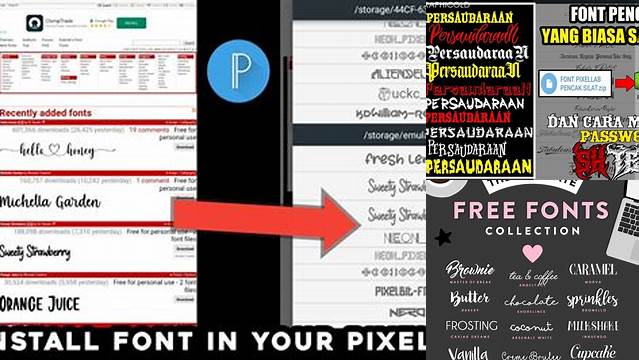
Free Font Pixellab: Your Complete Guide To Stunning Typography
Are you ready to dive into the exciting world of design with Free Font Pixellab? Guys, if you're looking to spice up your graphics with some killer typography, you've come to the right place. We're going to explore everything about Free Font Pixellab, from where to find these amazing fonts to how to use them like a pro. Whether you're a seasoned designer or just starting out, this guide will equip you with all the knowledge you need to create visually stunning designs that capture attention. Let's get started and unlock the power of typography with Free Font Pixellab! So, buckle up, and get ready to transform your designs!
Unveiling the Power of Free Font Pixellab: A Typography Revolution
Alright, let's get down to brass tacks: What's the deal with Free Font Pixellab? Well, it's all about the incredible selection of fonts available within the Pixellab app. Pixellab is a super user-friendly mobile app that lets you create stunning graphics right on your phone or tablet. And the best part? It offers a vast library of free fonts, making it accessible for anyone to get creative, regardless of their budget. With Free Font Pixellab, you're not just getting text; you're getting a powerful tool to convey your message, express your brand's personality, and grab your audience's attention. The right font can make or break a design, turning a simple graphic into a work of art. Imagine crafting eye-catching social media posts, creating professional-looking logos, or designing captivating marketing materials – all without spending a dime on expensive software or font licenses. It's all about empowering you, the creative enthusiast, to make your ideas pop! These fonts come in all shapes and sizes – from elegant serifs to bold sans-serifs, playful scripts, and everything in between. This variety is vital; each font carries its own unique personality and is best suited for different purposes. You might find that a classic serif font is perfect for a formal announcement, while a quirky script font is ideal for a fun, informal invitation. The power of Free Font Pixellab lies not just in the number of fonts but in the endless creative possibilities it unlocks. So, how do you harness this power? Stay with us, and we’ll dive into all the details!
Why Choose Free Fonts for Your Designs?
Choosing free fonts from Free Font Pixellab is a game-changer for many reasons, especially if you're a design enthusiast on a budget. First and foremost, it's cost-effective. No need to shell out cash for font licenses when you have a treasure trove of fantastic options right at your fingertips. This makes it perfect for personal projects, small businesses, or anyone who wants to experiment with design without the financial commitment. Beyond the financial benefits, Free Font Pixellab also offers unparalleled accessibility. You don't need to be a design expert to get started. The app's user-friendly interface makes it super easy to browse, download, and use fonts in your designs. This accessibility opens up the world of design to everyone, regardless of their skill level or background. Furthermore, using free fonts is a great way to explore different styles and find the perfect match for your brand or project. The variety is key here. You can test out different fonts, experiment with combinations, and see what resonates with your audience without any financial risk. This experimentation is crucial in finding your unique design voice and refining your aesthetic. So, whether you're a social media guru looking to elevate your posts or a budding entrepreneur aiming to create a professional brand identity, the accessibility and affordability of Free Font Pixellab is a major win.
Where to Find the Best Free Fonts for Pixellab
Looking for the ultimate font treasure trove? Let's explore where you can find the best Free Font Pixellab fonts to spice up your designs. Firstly, always remember that the Pixellab app itself is a great place to start. It comes packed with a fantastic selection of pre-installed fonts. These are a great starting point, perfect for a variety of design needs. However, if you are seeking a wider range, explore some of the best websites that offer free font downloads. A great option is Google Fonts. This is a massive library of fonts, all of which are free for both personal and commercial use. It's super user-friendly, allowing you to browse fonts by style, thickness, and other features. Another great place to look is DaFont. This site has an enormous collection of fonts, from modern and sleek to quirky and vintage. Be mindful of the licensing; it’s always a good idea to check the usage rights for each font before you use it in your design. Font Squirrel is also worth exploring; this site curates high-quality fonts and offers them for free, often with commercial-use licenses, making it a good choice for businesses. Additionally, consider Behance and Dribbble. Both platforms are great places to discover unique fonts created by talented designers. You can often find free font downloads or links to download them on the designers' profiles. Always remember to read the license agreements associated with each font carefully. Make sure you understand how you can use the font – whether it's for personal use, commercial projects, or both. Keeping an eye out for the font's creator and giving credit can also be a nice gesture. With so many free options, you're sure to find fonts to suit your style and meet your design needs. Happy downloading, and let your creativity shine with all the Free Font Pixellab fonts available!
Mastering Typography: Tips for Using Free Fonts in Pixellab
Alright, now that you know where to find your Free Font Pixellab fonts, let's talk about how to use them like a pro! Typography isn't just about picking a pretty font. It's an art, a science, and a critical component of design. First things first, font pairing is key. Don't just pick a single font and call it a day. Experiment with combining different fonts to create visual interest and hierarchy. Consider a classic pairing like a strong, bold headline font with a clean, readable body font. This creates contrast, making your design more engaging. When choosing fonts, think about the message you want to convey and the personality of your brand. A playful font might be ideal for a children's book, while a formal font is better suited for a business presentation. Consider legibility. No matter how much you love a font, it's useless if people can't read it. This is super important! Choose fonts that are easy to read, especially for body text. Also, always ensure the font is clear on different backgrounds and sizes. Spacing is also critical. Adjust the line spacing, letter spacing, and word spacing to improve readability. Sometimes, just a slight adjustment can make a massive difference. Hierarchy is another important aspect. Create a clear visual hierarchy by using different font sizes, weights, and styles. This helps guide the viewer's eye and emphasizes the most important information. Bold headlines, smaller body text, and strategic use of italics can all help create this hierarchy. Experiment with color. Try using different colors for your fonts to make them stand out and match the overall color scheme of your design. Always make sure there is enough contrast between the font color and the background. Keep it consistent! Once you have a style that you like, stick with it. Consistent use of fonts helps strengthen your brand identity and makes your designs more recognizable. Try to avoid using too many fonts in a single design. Typically, it's best to stick to one or two font families for consistency. By following these tips, you’ll be well on your way to creating stunning designs with your Free Font Pixellab fonts.
Font Selection and Branding: Creating a Cohesive Look
Let’s talk branding! Using Free Font Pixellab to create a cohesive brand identity is a game-changer. Your brand's fonts are more than just text; they are a visual representation of your brand's personality, values, and message. To begin, understand your brand's core values. Is your brand playful and fun, or is it professional and trustworthy? Your chosen fonts should reflect these values. A playful brand might use a quirky, handwritten-style font, while a professional brand might opt for a clean, modern sans-serif font. Next, develop a font palette. This means selecting a few fonts that you'll use consistently throughout your branding. Typically, you’ll want a headline font, a body font, and perhaps a secondary font for emphasis. Consider the relationships between the fonts. They should complement each other and create visual harmony. Consistency is key. Use your chosen fonts consistently across all your branding materials, from your logo and website to your social media posts and marketing materials. This consistency will help build brand recognition and reinforce your brand identity. In addition to the fonts themselves, consider the different weights and styles available for each font. Using different weights (like bold, regular, and light) and styles (like italic) can help you create visual interest and hierarchy within your designs. Always make sure the fonts you choose are legible. The font needs to be easy to read, especially for body text. Think about the font's spacing and the environment in which it will be used. Make sure your fonts are accessible. Choose fonts that work well on different devices and screen sizes. Don't forget to test your fonts on various backgrounds to ensure they are easily readable. By carefully considering these points, you can leverage Free Font Pixellab fonts to create a powerful and cohesive brand identity that captivates your audience and leaves a lasting impression.
Designing with Free Fonts: Creating Stunning Visuals
Designing with Free Font Pixellab is a gateway to unleashing your creative potential. Once you have selected the perfect fonts for your project, it's time to create stunning visuals that capture attention and convey your message effectively. Start with the fundamentals. Before diving into your design, think about the basic principles of good design. This includes things like balance, contrast, proportion, and alignment. These principles will help you create visually appealing compositions. When designing with text, make sure to create a clear hierarchy. Use different font sizes, weights, and styles to guide the viewer's eye and emphasize important information. A strong headline font can grab attention, while a readable body font ensures your message is easy to follow. Experiment with different layouts. Try out various arrangements of text and other design elements to see what looks best. Consider using grids to help you create a structured and organized layout. Use negative space effectively. Don't be afraid to leave some empty space around your text and other elements. This can help prevent your design from feeling cluttered and can make it easier for the viewer to focus on the key elements. Embrace color. Choose a color palette that complements your fonts and the overall message of your design. Use color strategically to create visual interest, highlight important information, and evoke certain emotions. Incorporate images and graphics. Combine your fonts with images, illustrations, or other graphics to add visual interest and context to your designs. Make sure the images you choose are high-quality and relevant to your message. Now, let's consider your target audience. Think about who you're designing for and what their preferences might be. Tailor your font choices, layout, and color scheme to resonate with your audience. When designing, always ask yourself, "Does the design communicate my message effectively?" If you're not sure, try getting feedback from others. Showing your work to others can provide fresh perspectives and help you refine your designs. By following these tips, you can start to create stunning visuals using your Free Font Pixellab fonts and make a lasting impression on your audience.
Creating Eye-Catching Graphics with Pixellab
Want to create graphics that really pop? With Free Font Pixellab, you have a powerful toolset right at your fingertips. Designing eye-catching graphics is all about combining the right elements to create a visual experience that grabs attention and keeps viewers engaged. Start with a clear concept or message. Before you begin designing, decide what you want to convey. Make sure your message is focused and easy to understand. Choose the right fonts from your Free Font Pixellab library. Select fonts that complement your message and create visual interest. Consider using different fonts for headlines, body text, and other elements. Also, remember to pick fonts that match the personality of your brand or the tone of your message. Next, focus on the composition. Consider the arrangement of text, images, and other elements on your canvas. Experiment with different layouts to see what looks best. The aim is to guide the viewer's eye and create a visually pleasing design. Incorporate high-quality images and graphics. Use images, illustrations, or other graphics to add visual interest and context to your design. Make sure the images you choose are high-quality and relevant to your message. Embrace the power of color. Select a color palette that complements your fonts and the overall message of your design. Consider using color strategically to create visual interest, highlight important information, and evoke certain emotions. Now, master the art of typography. Use different font sizes, weights, and styles to create a clear visual hierarchy. Bold headlines, smaller body text, and strategic use of italics can all help guide the viewer's eye. Pay attention to the details. Small details like spacing, alignment, and kerning can make a big difference in the overall quality of your design. Experiment and iterate. Try out different variations of your design to see what works best. Don't be afraid to experiment with new techniques and approaches. Getting feedback from others is also helpful. Show your designs to friends, colleagues, or potential clients to get their thoughts and suggestions. By following these tips, you can create captivating graphics using your Free Font Pixellab fonts.